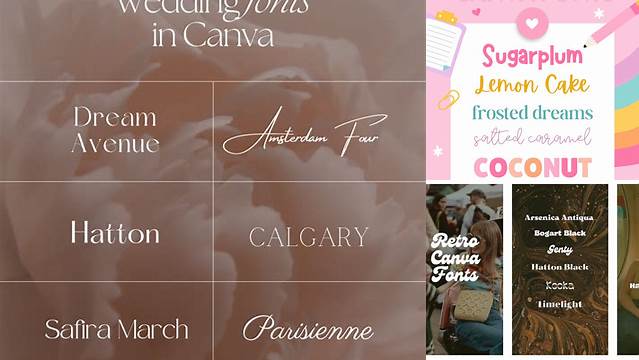
Canva Fonts 2026: Get Your Designs Looking Fresh!
Hey design enthusiasts! Are you ready to elevate your Canva game in 2026? Well, you're in the right place! We're diving deep into the awesome world of Canva fonts and what you can expect in the coming years. From the newest trends to classic favorites, this guide has everything you need to create stunning visuals that will make your audience say, "Wow!" So, buckle up, grab your favorite beverage, and let's explore the exciting realm of Canva fonts 2026 together. We'll explore the latest font trends, how to find the perfect font for your project, and some pro-tips for creating eye-catching designs. Let's get started and unlock the secrets to typography that will make your designs shine in 2026 and beyond.
Hottest Font Trends in Canva for 2026
Alright, guys, let's talk trends! Staying up-to-date with the latest font trends is crucial for making your designs relevant and appealing. In 2026, expect to see a fusion of old and new, with a strong emphasis on versatility and accessibility. One of the biggest trends will be the use of variable fonts. Variable fonts are like magic; they allow you to customize the weight, width, and style of a font within a single file. This gives you endless possibilities and flexibility, making your designs unique and dynamic. Imagine being able to subtly change the font weight to emphasize a headline or adjust the width to fit a specific layout – all without switching fonts. It's a game-changer! Another trend to watch is the resurgence of retro fonts with a modern twist. Think of those classic fonts from the 70s and 80s, but with a cleaner, more contemporary look. These fonts will add a touch of nostalgia while still feeling fresh and current. These fonts are perfect for projects that need a playful and eye-catching vibe. Furthermore, we're likely to see a continued emphasis on inclusive design. This means that fonts will be designed to be readable by everyone, regardless of their visual abilities. Expect to see more fonts with clear letterforms, ample spacing, and alternative character options to ensure maximum readability. This is not just a trend but a necessity, as designers become more aware of accessibility. Also, the demand for fonts with multilingual support is expected to increase. As the world becomes more globalized, designers need fonts that can accommodate different languages and alphabets. This means more diverse font choices and better support for characters from various scripts, making it easier to reach a wider audience. The fusion of technology and design will also play a vital role in shaping font trends. With the advancement of AI and machine learning, we can anticipate the emergence of AI-generated fonts and tools. These tools may suggest font combinations based on your design goals or even create custom fonts tailored to your needs. This is another tool in a designer's tool kit and will allow for more creative freedom. The evolution of font trends in Canva 2026 will be a fascinating mix of innovation, inclusivity, and nostalgia, which is why we need to be prepared for what lies ahead.
Embracing the Variable Font Revolution
The variable font revolution is coming, guys! As mentioned, it's a major game-changer in the world of typography. These fonts offer incredible flexibility and control, letting you adjust various aspects of the font within a single file. This is like having a whole collection of fonts packed into one, offering a range of weights, widths, and styles. Imagine the freedom! Instead of downloading multiple font files, you can simply tweak the properties of a variable font to achieve the exact look you want. This not only saves time but also streamlines your workflow. This increased control translates to the ability to fine-tune your designs, creating a cohesive and visually appealing experience for your audience. With variable fonts, you can experiment with subtle changes to a font's weight, width, or even the style of the characters, without having to switch to an entirely new font. This level of customization opens up a whole new world of design possibilities. Think about using a variable font to create dynamic text effects that change based on screen size or user interaction. You could have a headline that subtly adjusts its weight as a user scrolls, or a body of text that automatically adapts to different screen resolutions. The possibilities are endless. In Canva 2026, expect to see an increasing number of variable fonts available, allowing you to elevate your designs with ease. Embracing this technology will give you a significant advantage. This shift towards variable fonts in Canva will empower you to create designs that are not only visually stunning but also incredibly functional and responsive, which is the future of the design.
Retro Fonts Making a Comeback
Alright, let's get nostalgic! Retro fonts are making a serious comeback. They're all about bringing back the vibes of past decades with a modern twist. In Canva 2026, expect to see plenty of these fonts, adding a touch of personality and vintage charm to your designs. Why the resurgence? Well, retro fonts have a way of instantly grabbing attention. They evoke feelings of nostalgia and familiarity, which can be incredibly appealing to your audience. Think about the classic fonts from the 70s and 80s, but with a cleaner, more contemporary look. These fonts are perfect for projects that need a playful and eye-catching vibe. We're talking about bold, groovy fonts that scream fun and excitement! These fonts are great for creating a sense of authenticity and history and can be a powerful way to connect with your audience on an emotional level. Expect to see more designers experimenting with these fonts to create a truly unique and impactful visual experience. In Canva, retro fonts will be a must-have, whether you're designing posters, social media graphics, or presentations. So, get ready to embrace the nostalgia and incorporate these trendy fonts into your projects. Combining retro fonts with modern design elements is a fantastic way to create a unique style. Mixing these styles will give you an edge and your work will stand out. This is all about creating designs that are both visually appealing and emotionally resonant. The use of retro fonts in Canva 2026 will be a great way to elevate your brand's message and make it truly memorable.
Finding the Perfect Font Combination in Canva
Alright, let's talk about the magic of font pairings! Choosing the right fonts is a crucial part of any design. It can make or break the overall look and feel of your project. One of the most important things to remember when choosing fonts is that you should consider your audience. Who are you trying to reach? What are their preferences? Researching your target audience is important, and it will inform your decisions. Think about the message you want to convey. The fonts you choose should align with your brand's values and the overall tone of your project. Do you want to come across as professional, playful, or something in between? Matching the tone of your message is vital. Selecting fonts with contrasting styles can create visual interest and make your design more dynamic. The goal is to create a balance between the fonts you choose. One way to achieve this is by using one font for headings and another for body text. This creates a clear hierarchy and makes your content easier to read. Choose fonts that complement each other and work well together. Look for fonts with different weights and styles that can be combined to create a cohesive design. You can also use font pairing tools. There are many resources available that can help you find the perfect combination of fonts for your project. These tools can suggest font pairings based on your preferences. Remember to experiment and have fun! Try out different combinations and see what works best for your project. Don't be afraid to break the rules, but always consider the overall visual effect. In Canva 2026, you can expect to find more font pairing suggestions and tools. By following these tips, you'll be able to find the perfect font combination and elevate your designs to the next level. So, go forth and create some amazing designs!
Understanding Font Hierarchy and Readability
Let's dive into the crucial concepts of font hierarchy and readability. These are two fundamental aspects of typography. Font hierarchy is all about creating a clear visual structure for your content. It's about guiding your audience through the information in a logical and organized way. To create a strong font hierarchy, you should use different font sizes, weights, and styles. Headings should be larger and bolder than body text, making them stand out and grab attention. Subheadings should be smaller than headings but still distinct from the body text. By using this approach, you create a clear visual structure and direct the reader's eye. Readability is essential for conveying your message effectively. If your content is difficult to read, people won't stick around. To improve readability, choose fonts that are clear and easy to read. Use appropriate spacing between letters, words, and lines. The line length is also important; keep the lines of text to a reasonable length, so the reader's eye doesn't have to travel too far. Contrast is another vital aspect of readability. Make sure there is enough contrast between the text and the background. Dark text on a light background is generally easier to read than light text on a dark background. Additionally, consider the context of your design. The fonts and styles you choose should complement your project and target audience. Remember, the goal is to make your content accessible and engaging. Understanding font hierarchy and readability will help you create visually appealing designs in Canva 2026 and beyond.
Using Font Pairing Tools and Resources
Alright, let's explore some amazing resources that can help you find the perfect font combinations! Luckily, there are plenty of fantastic tools out there. One of the best resources is Canva itself. Canva provides a wide selection of fonts, along with pre-designed templates and font pairings. It's a great place to start and experiment with different combinations. Canva also has tutorials and design guides to assist you in understanding how to work with fonts. Another useful tool is Google Fonts, which offers a vast collection of free fonts. Google Fonts also provides helpful information about each font, including its characteristics and suggested pairings. Check it out for yourself and see how it works. Beyond these platforms, there are many font pairing generators. These tools can suggest font combinations based on your preferences, the design you want to create, and your brand's values. They analyze various font characteristics, such as style, weight, and mood, to find combinations. This helps you narrow down the choices and find the perfect match. Keep in mind that using font pairing tools is just a starting point. You should always try out the suggested pairings and adjust them to suit your project. Experiment with different combinations and see what works best for you. You can also draw inspiration from other design platforms. Look at websites, social media, and graphic design projects you admire. Try to identify the fonts being used and how they are combined. Don't be afraid to experiment and try out different combinations. Your goal is to find fonts that complement each other and create a cohesive design. Using font pairing tools and resources is a great way to save time and get inspired. In Canva 2026, these tools will continue to evolve, offering even more advanced features and suggestions. By taking advantage of these resources, you can easily find the perfect font combinations and elevate your designs.
Pro-Tips for Creating Eye-Catching Designs in Canva
Alright, let's get into some pro-tips to make your designs pop! First off, embrace white space. Don't be afraid to leave empty space around your text and elements. This is critical for drawing attention to your work. A cluttered design can be overwhelming and difficult to read, while a well-spaced design will feel balanced and visually appealing. Use contrast to create visual interest. Use different font sizes, weights, and styles to make your headings stand out from your body text. You can also use contrasting colors to make your design more dynamic. Think about the overall layout of your design. Make sure it is easy to navigate and that your audience can easily follow the flow of information. You can use grids and alignment tools to make sure your elements are arranged in a neat and organized way. This not only makes your designs look professional but also improves readability. Be consistent with your branding. Use your brand's colors, fonts, and style guidelines to create a cohesive and recognizable visual identity. Consistency will help you build brand recognition and strengthen your brand's identity. Be sure to experiment with different font combinations. Don't be afraid to combine different fonts to create a unique look. Try pairing a bold headline font with a clean body text font, but make sure that the fonts complement each other and that your design remains readable. Use high-quality images and graphics. Visuals are just as important as the text. Choose relevant images and graphics that are clear, sharp, and visually appealing. In Canva 2026, you'll have even more options and tools available. Learn the basics of color theory. Understanding how colors work together is key to creating visually appealing designs. Use complementary colors, analogous colors, or monochromatic color schemes to create a cohesive and visually appealing design. Keep your audience in mind. Think about who you're designing for and what they will respond to. This helps you make informed decisions about your fonts, colors, and layout. By using these pro-tips, you can create eye-catching designs that will grab attention in Canva 2026!
Mastering Font Effects and Typography Tricks
Let's dive into some amazing tricks! Text effects can transform your text and make it more dynamic. Canva offers a variety of text effects, such as shadows, outlines, and curved text. Experiment with these effects to add visual interest. You can use text effects to create a 3D look, a glowing effect, or to make your text stand out from the background. Typography is key! Use different font weights, styles, and sizes to create a visual hierarchy. This helps organize the information and guides the reader's eye. Headings should be larger and bolder than body text, while subheadings should be smaller but still distinct. Pay attention to spacing, particularly kerning and leading. Kerning refers to the space between individual letters, while leading refers to the space between lines of text. Adjusting these settings can greatly improve the readability and visual appeal of your text. Use text as a design element. Don't be afraid to incorporate text into your design in creative ways. You can use text as a background element, as a pattern, or even to create a specific shape or form. Be sure to use different text effects to make your text stand out, making it more dynamic. Experiment with text alignment. Text alignment refers to how your text is positioned within a text box. Left alignment is the most common and easy to read, but you can also try center alignment, right alignment, or justified alignment to create different visual effects. Don't be afraid to think outside the box and try new things. Experiment with different fonts and styles to find what works best for your design. Mastering font effects and typography tricks will greatly enhance your designs in Canva 2026, helping you to create visually appealing projects.
Leveraging Canva's Design Tools and Features
Leveraging Canva for Professional Design Projects
How can you leverage Canva for professional design projects? Canva is much more than a beginner-friendly tool; it's a powerful platform that can be used for professional-level projects. With a little creativity and knowledge, you can create stunning designs that meet your client's needs. First, establish your brand identity. This includes your logo, color palette, and fonts. Make sure that your designs are consistent with your brand. Utilize Canva's advanced features. These include features like animation, video, and the ability to upload your own fonts. Learn about the technical aspects of design. Understand how to create designs for print and digital use. Explore the vast library of Canva templates. Canva offers a wide selection of templates for various projects, such as social media graphics, presentations, and marketing materials. Customize these templates to create unique designs that meet your client's requirements. Pay attention to the details. Ensure that your designs are polished and professional. Be sure to proofread your work and check for any errors. Organize your projects. Create folders and subfolders to keep your projects organized. Canva's cloud-based nature allows you to access your designs from anywhere, making it ideal for collaborating with clients. Use Canva's collaboration features. This allows you to share your designs with clients and get feedback. If you're aiming to create professional designs in Canva 2026, you can use the platform to create stunning visuals that meet your client's needs. By following these tips, you can confidently create designs. By mastering the basics of Canva and incorporating these tips, you can elevate your design projects to new levels. Remember to think critically about each design and try to meet all client requirements.